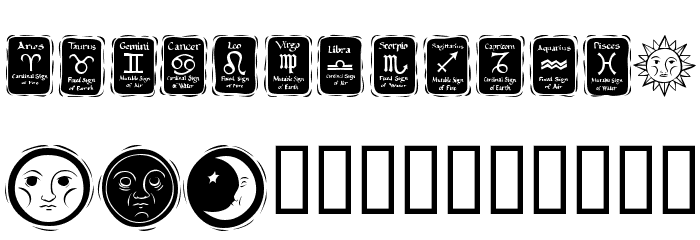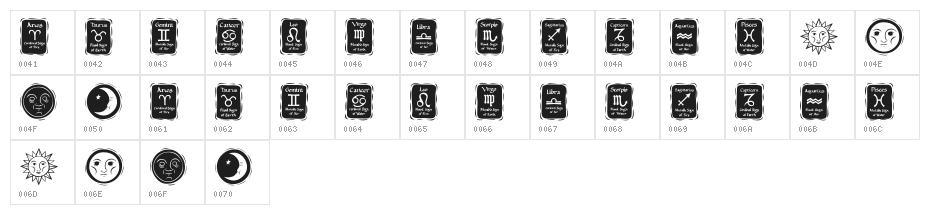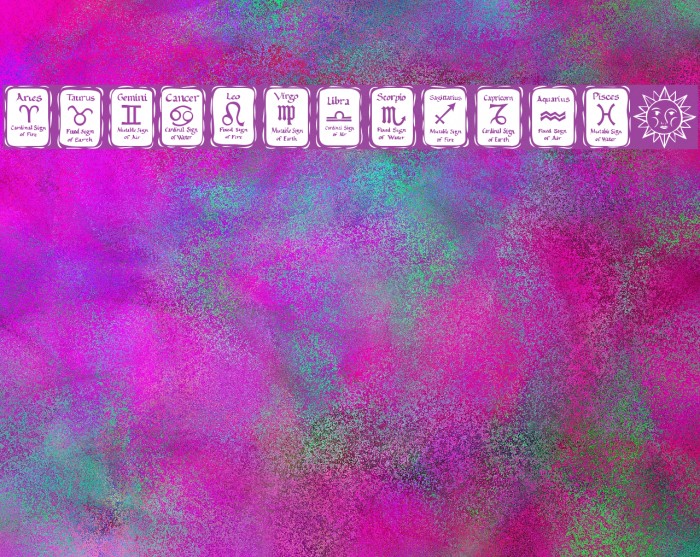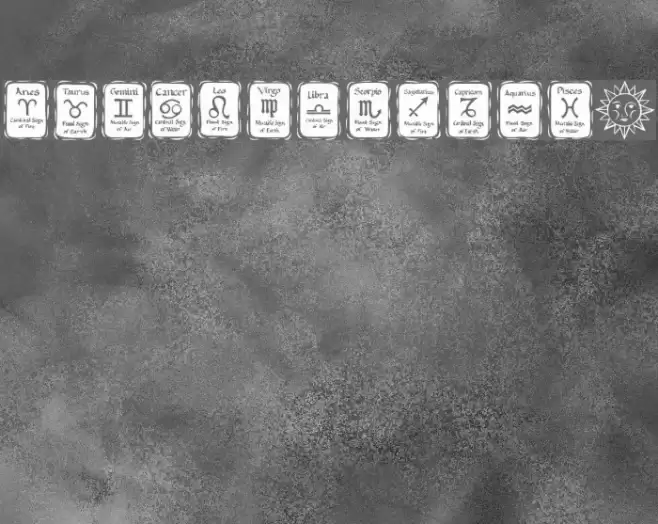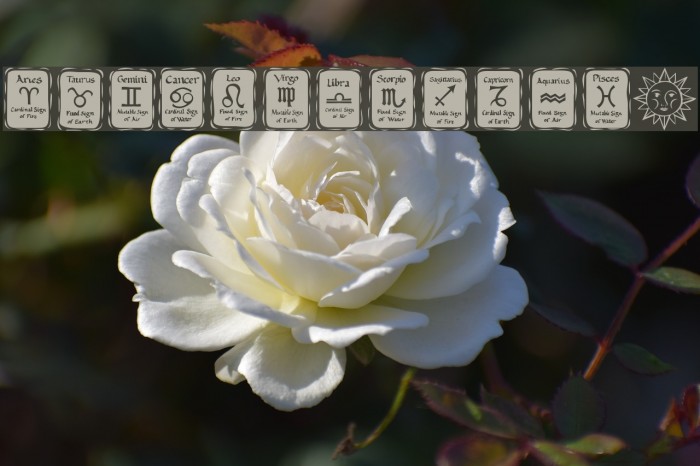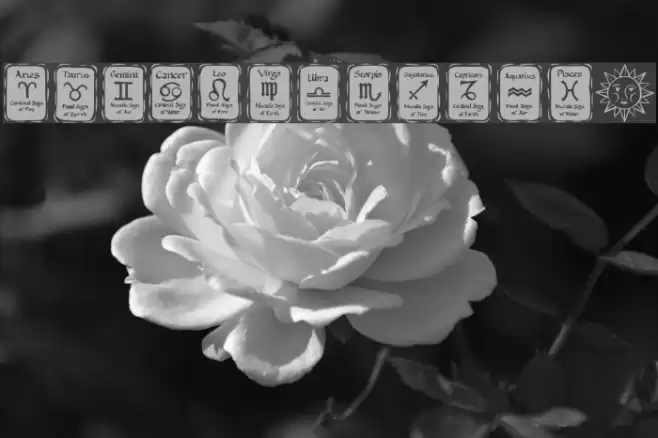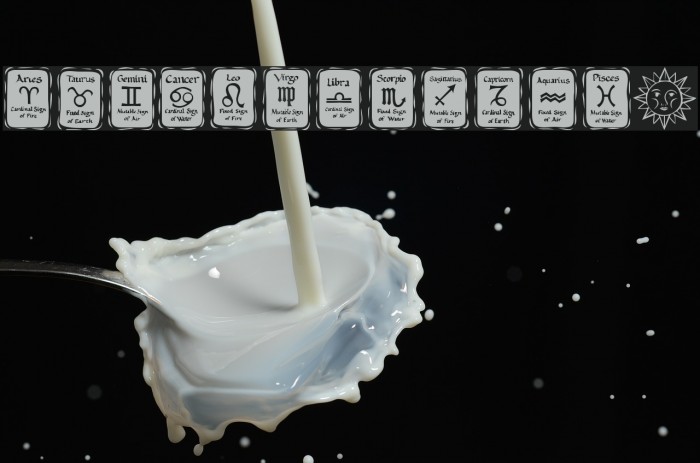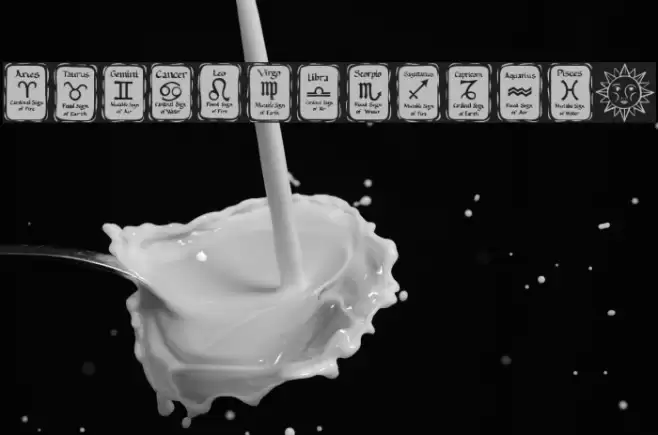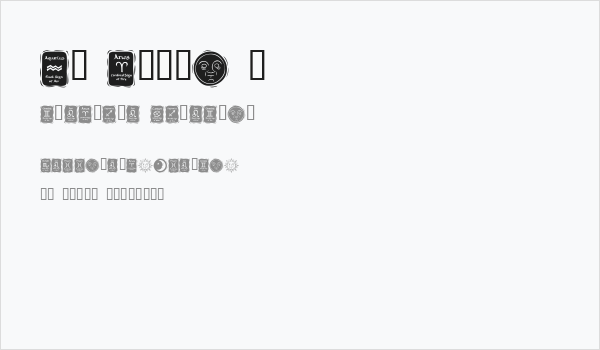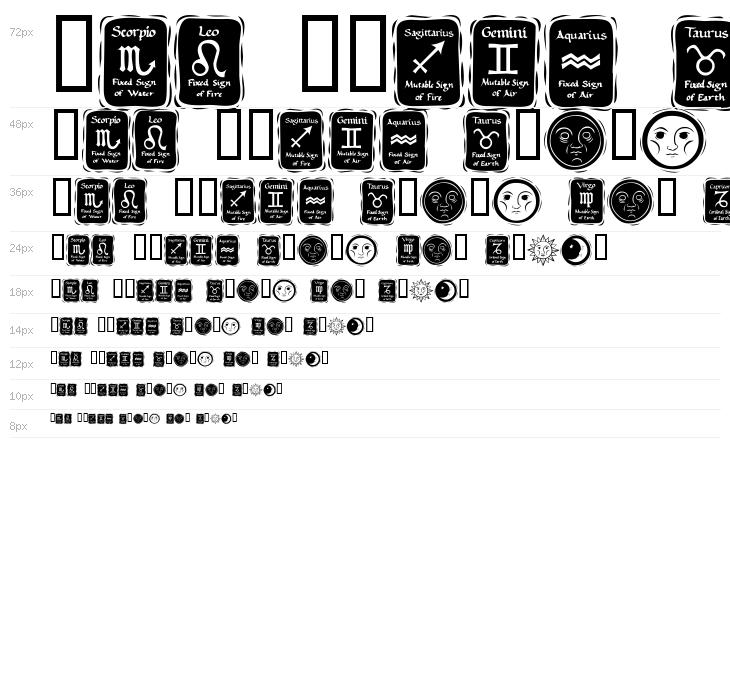
KR Astro 3 Font
KR Astro 3 Description
This is not a valid font image. The image contains astrological symbols and illustrations rather than a complete set of alphanumeric characters and punctuation marks typically found in a font set.